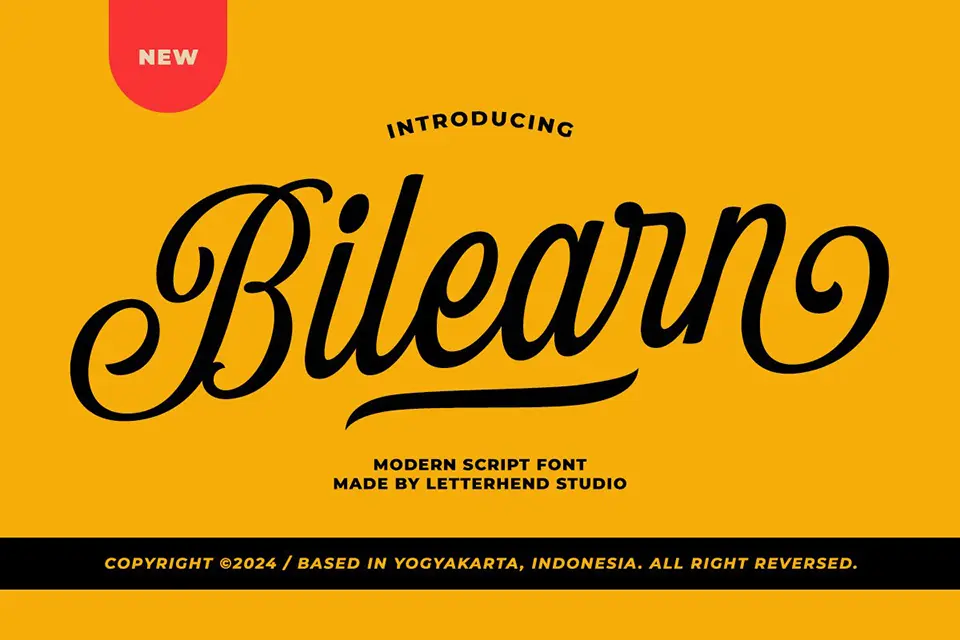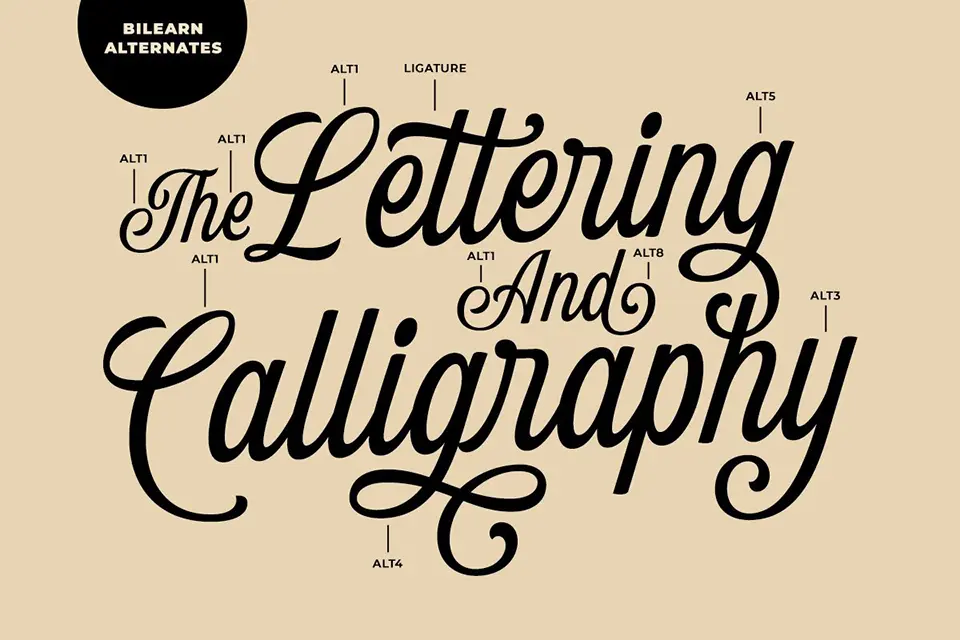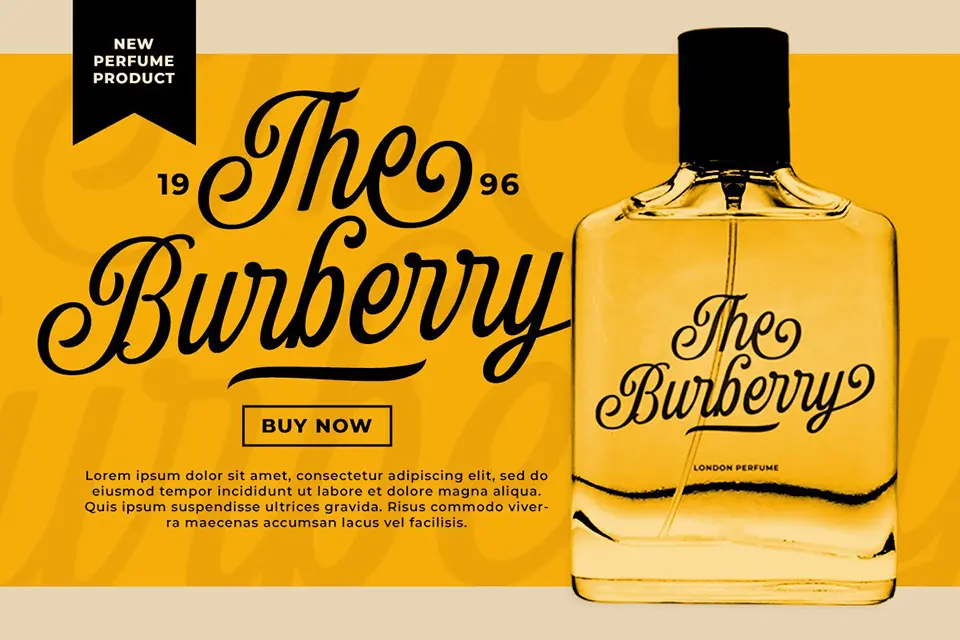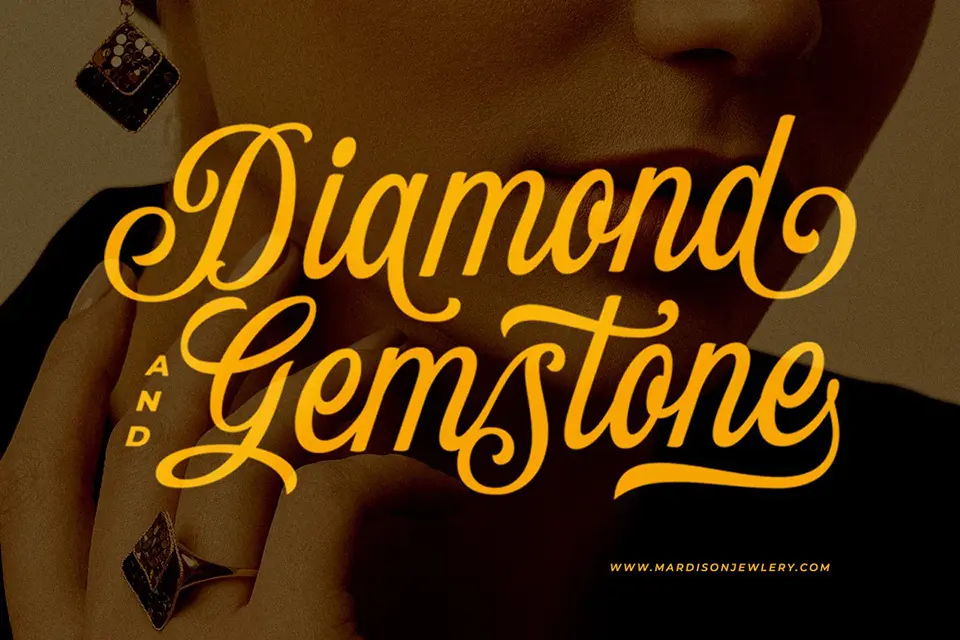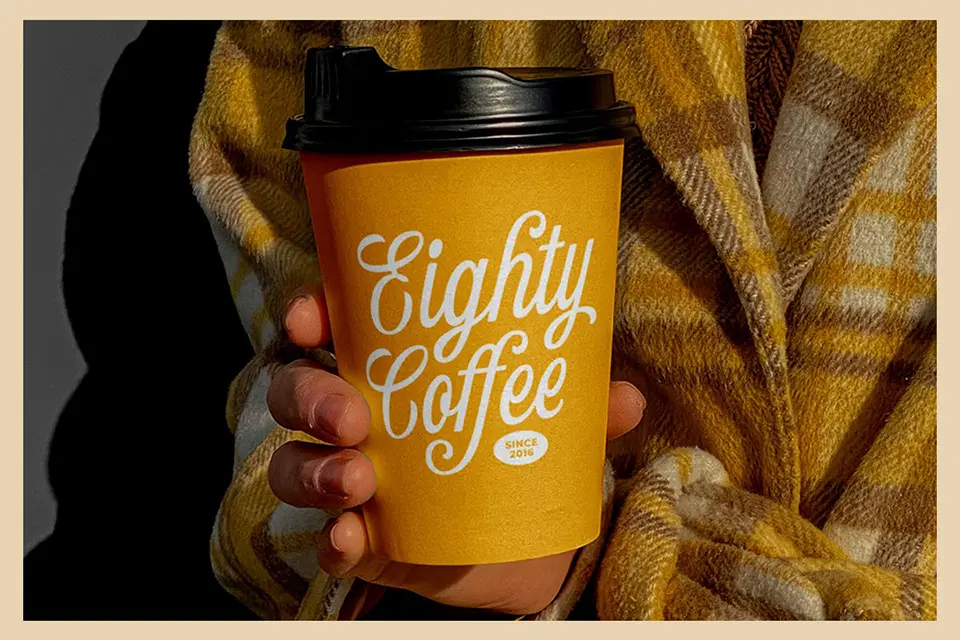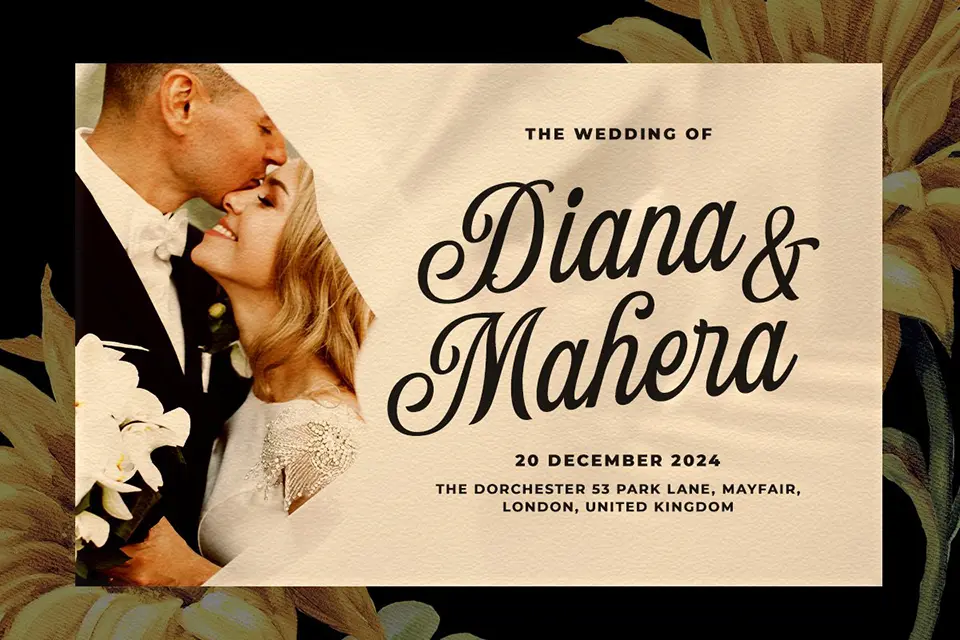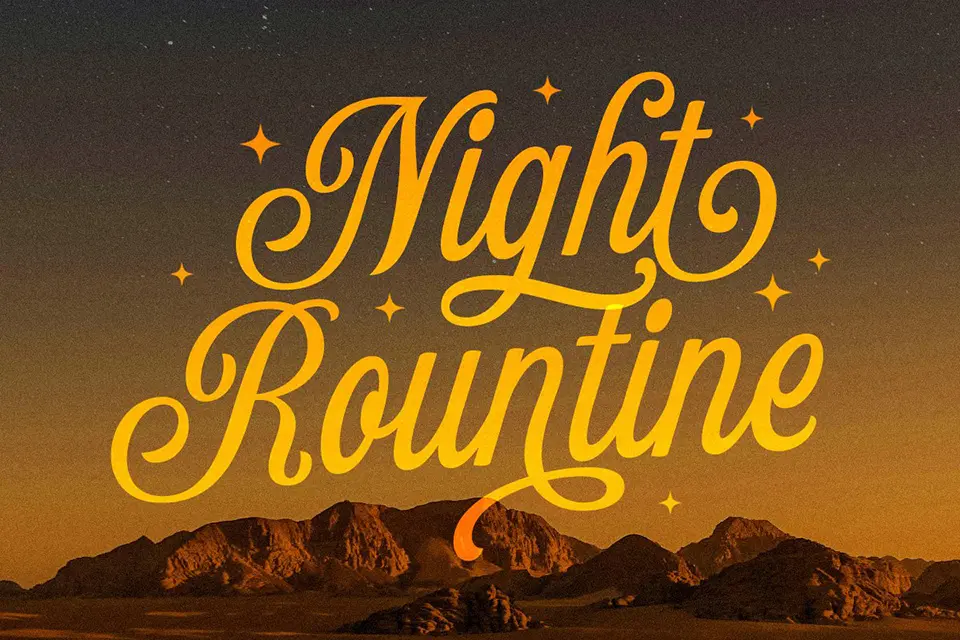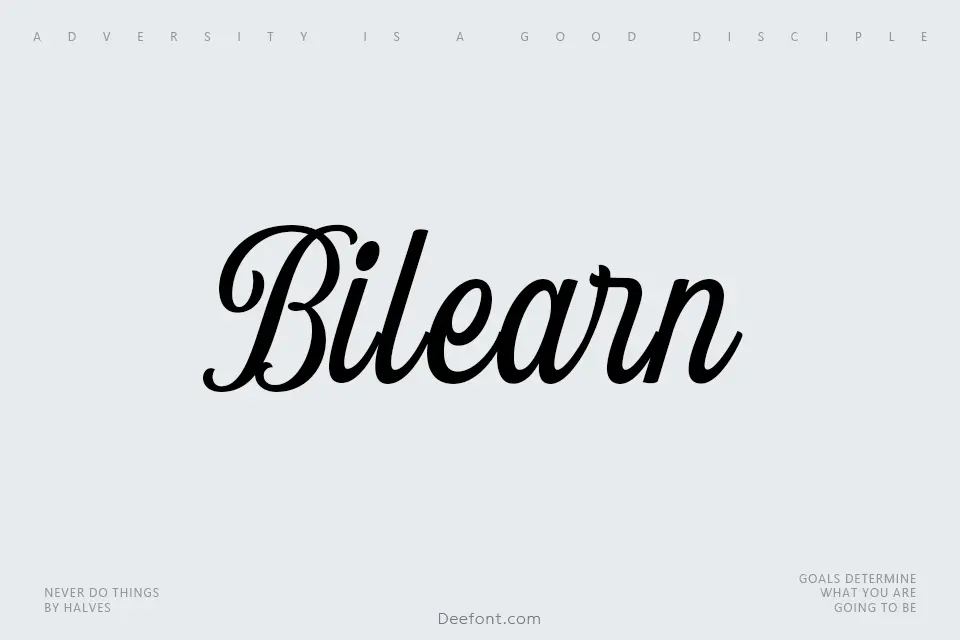
Bilearn Font
Bilearn Font is a modern script typeface crafted by Letterhend Studio, based in Yogyakarta, Indonesia. With its bold and flowing design, Bilearn combines vintage charm and contemporary sophistication, making it perfect for branding, headlines, logos, and packaging. The font features smooth curves and stylish swashes that add a dynamic and elegant touch to any project. Its versatility allows it to stand out in both formal and casual designs, creating a memorable visual impact. Ideal for designers seeking a balance of creativity and professionalism, Bilearn Font is a fresh addition to modern typography with timeless appeal.